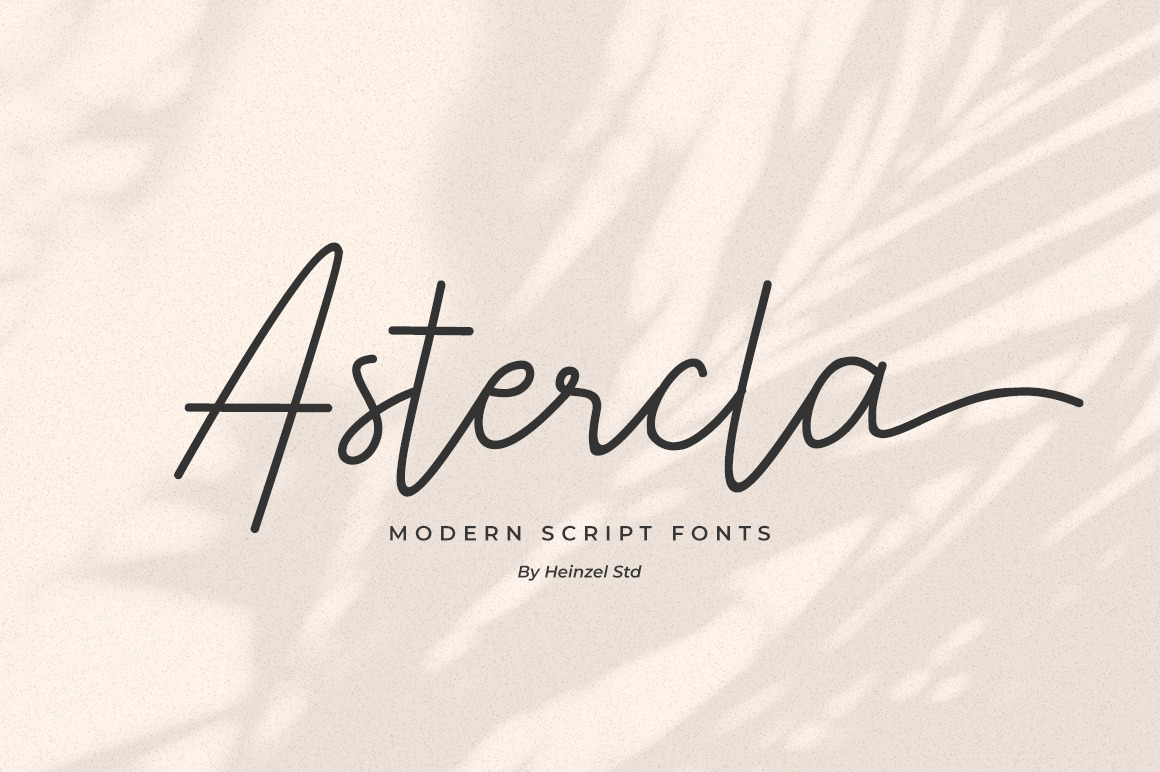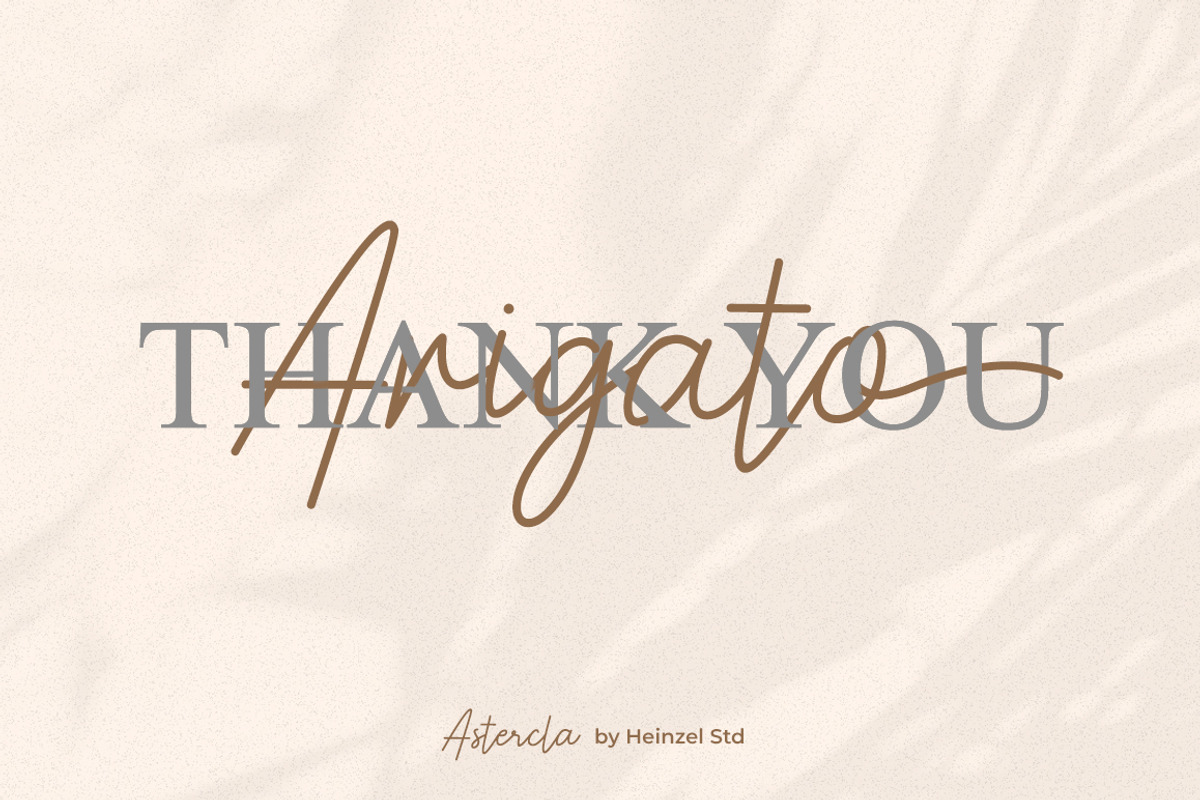
Astercla Modern Script Font
Astercla Script style - a new modern & fresh script with a handwritten and script style make this font looks elegant, natural, stylish and perfect for any awesome projects that need handwriting taste.
Astercla would perfect for photography, watermark, social media posts, advertisements, logos & branding, invitation, product designs, label, stationery, wedding designs, product packaging, special events or anything that need handwriting taste.
- Ligatures & Alternate